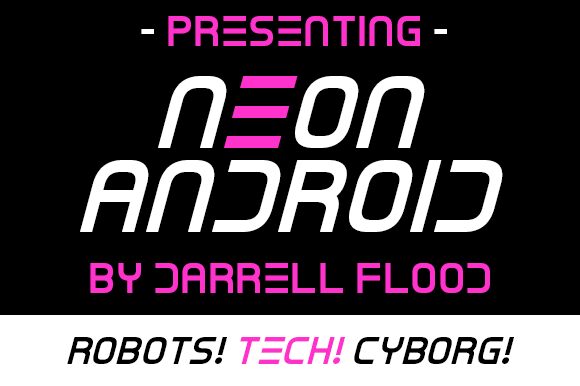
Neon Android
Get ready to add some futuristic flair to your projects with Neon Android, a stunning display font designed by Darrell Flood. With its sleek and stylish design, this font is perfect for sci-fi movie titles, gaming logos, tech company branding, and more. The bold lettering gives off an electric vibe that will make your designs stand out from the crowd. Whether you're creating a website banner or a poster for an event, Neon Android is the perfect choice for any project that needs a touch of futuristic style. Get your hands on this amazing font today!
** Users: For alternate (solid) characters D,E etc. - use uppercase